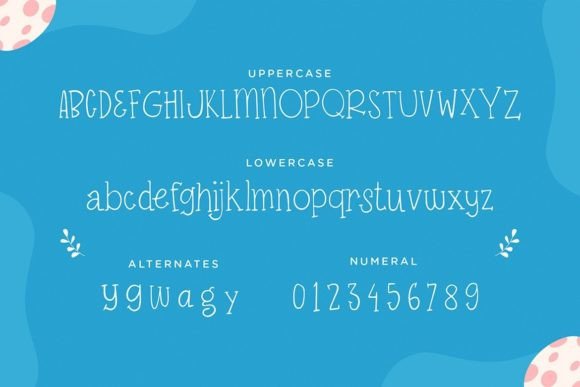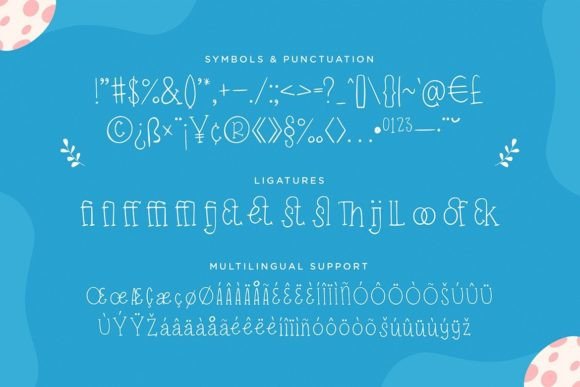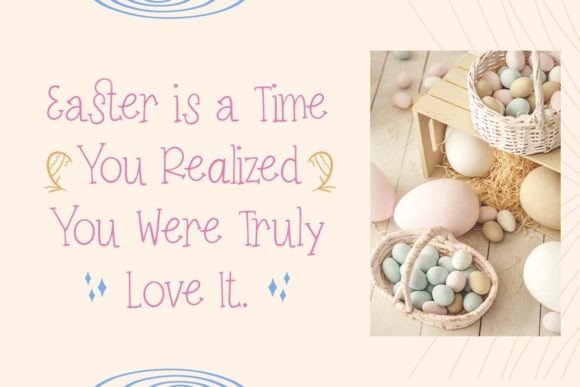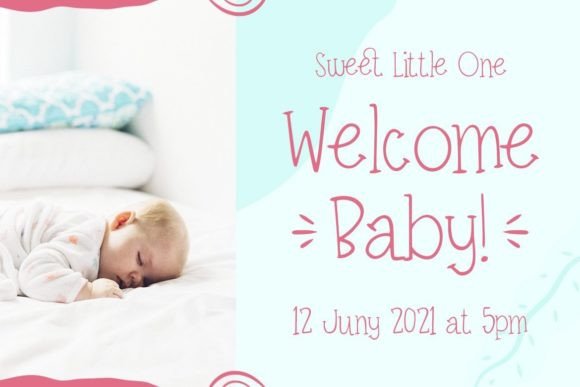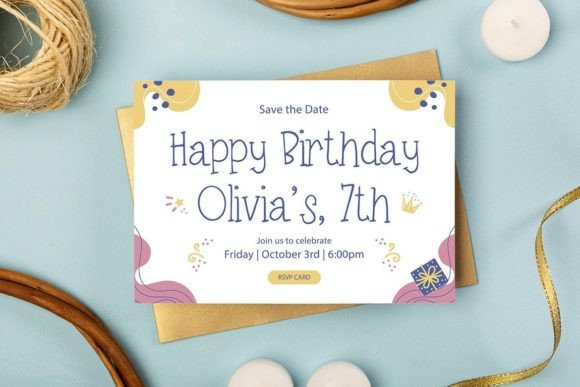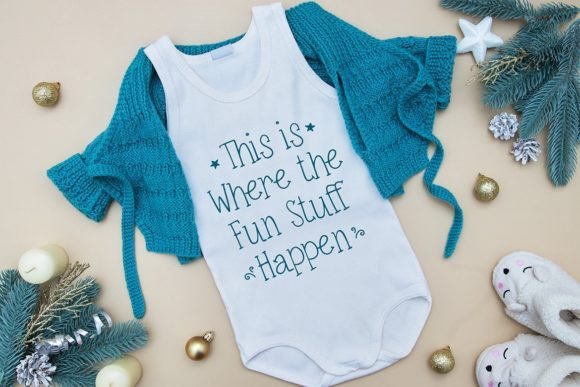
Bunny Talk Font: The Ultimate Choice for Fun and Playful Designs
Are you a designer or crafter looking for a font that can add a touch of whimsy and fun to your projects? Look no further than the Bunny Talk Font! This modern handwritten font is carefully crafted to become a true favorite among designers and crafters alike. In this article, we’ll explore the features and benefits of the Bunny Talk Font and how it can elevate your designs to the next level.
What is Bunny Talk Font?
Bunny Talk Font is a funny and modern handwritten font that’s perfect for kids-themed designs. It’s designed to be highly legible and versatile, making it suitable for a wide range of projects, from coloring books and birthday invitations to playgrounds and kids’ show events. The font’s playful and carefree vibe is sure to delight both kids and adults alike.
Key Features of Bunny Talk Font
- Handcrafted with love: Each letter and glyph is carefully handcrafted to ensure a unique and personal touch.
- PUA encoded: The font is PUA (Private Use Area) encoded, which means you can access all the amazing glyphs and ligatures with ease.
- Fun and playful: The font’s playful and whimsical design makes it perfect for kids-themed projects.
- Modern and fresh: The font’s modern design ensures it will look great in a variety of contexts, from digital to print.
Use Cases for Bunny Talk Font
Bunny Talk Font is perfect for a wide range of projects, including:
- Coloring books: Add a touch of fun and whimsy to your coloring books with this playful font.
- Birthday invitations: Create eye-catching and engaging birthday invitations that kids will love.
- Playgrounds and kids’ show events: Use the font to create fun and playful signage and promotional materials for kids’ events.
- Kids’ party decorations: Add a personal touch to kids’ party decorations with this fun and playful font.
Benefits of Using Bunny Talk Font
By using Bunny Talk Font in your designs, you can:
- Add a touch of personality: The font’s unique and playful design ensures your projects will stand out from the crowd.
- Save time: The font’s PUA encoding makes it easy to access all the glyphs and ligatures you need.
- Increase engagement: The font’s fun and playful design is sure to delight kids and adults alike, increasing engagement and interaction with your projects.
Tips for Using Bunny Talk Font
Here are some tips for getting the most out of Bunny Talk Font:
- Experiment with different colors: The font’s playful design looks great in a variety of colors, so don’t be afraid to experiment.
- Mix and match with other fonts: Bunny Talk Font pairs well with other playful fonts, so try mixing and matching to create a unique look.
- Use it for headlines and titles: The font’s bold and playful design makes it perfect for headlines and titles.
In conclusion, Bunny Talk Font is a fun and modern handwritten font that’s perfect for designers and crafters looking to add a touch of whimsy and fun to their projects. With its PUA encoding, playful design, and versatility, this font is sure to become a true favorite. Whether you’re creating coloring books, birthday invitations, or kids’ party decorations, Bunny Talk Font is the ultimate choice for fun and playful designs.